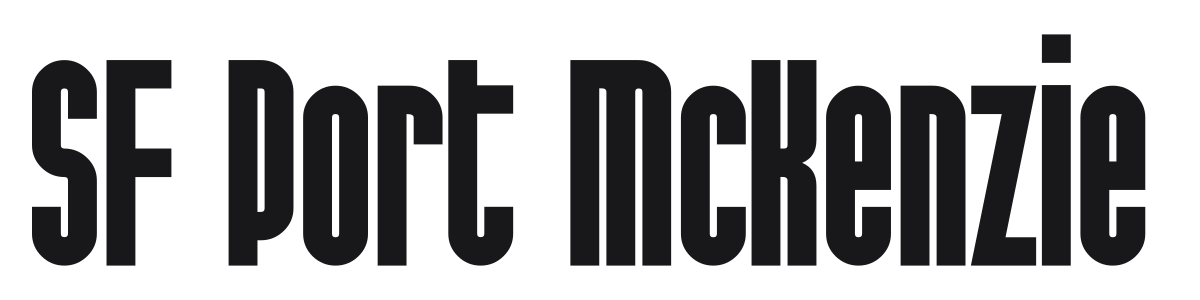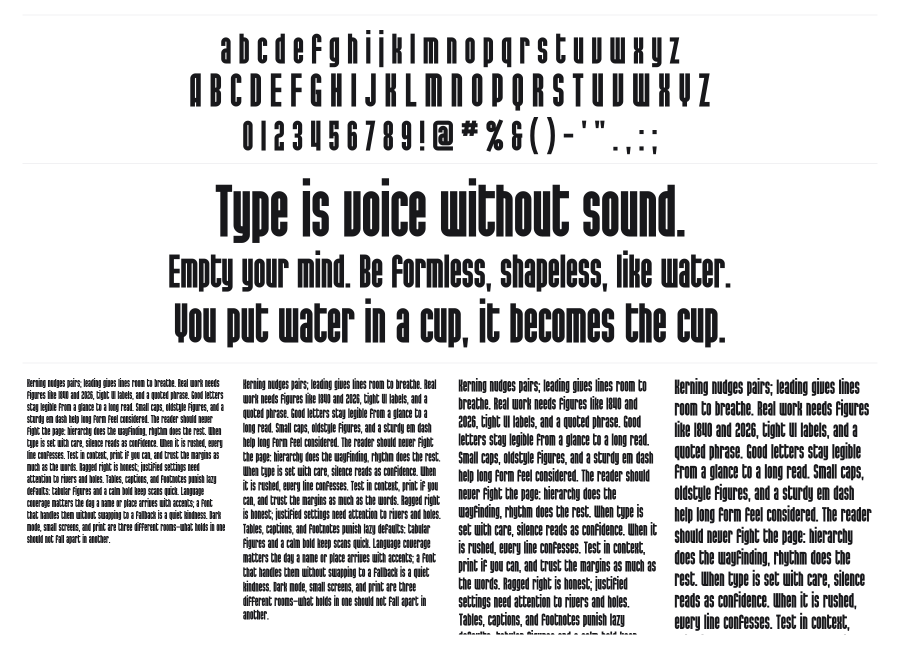
SF Port McKenzie
SF Port McKenzie is an ultra-condensed bold sans-serif with a strong retro American character. Flat-topped curves and squared joints compress each character into a dense, vertical column, making it hit hard at headline sizes. It carries that unmistakable 1960s–70s sports and editorial energy that works well for posters, album covers, and logotypes.